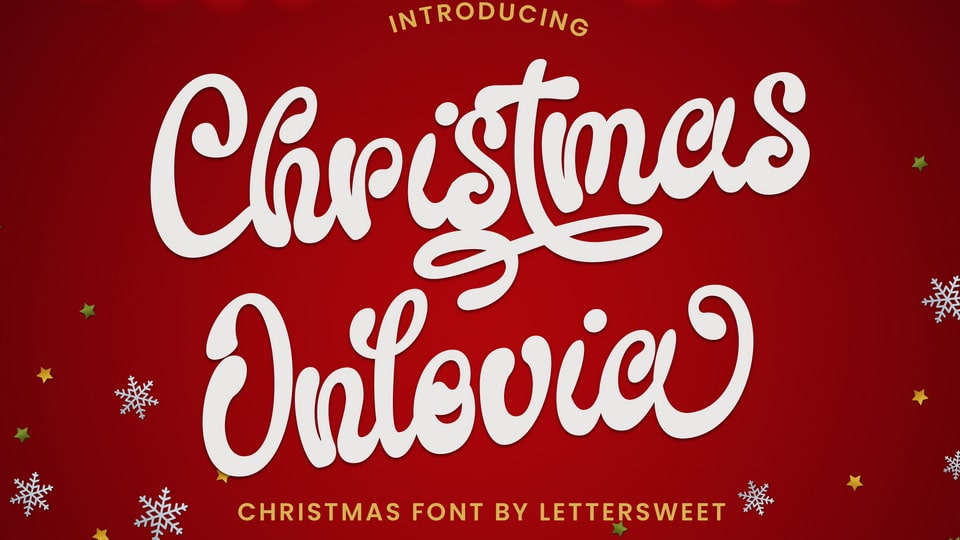
Download Christmas Onlovia font, a beautiful and sweet handwritten typeface. It is fresh, clean, and elegant. This font will look amazing in a great amount of projects, both formal and informal.